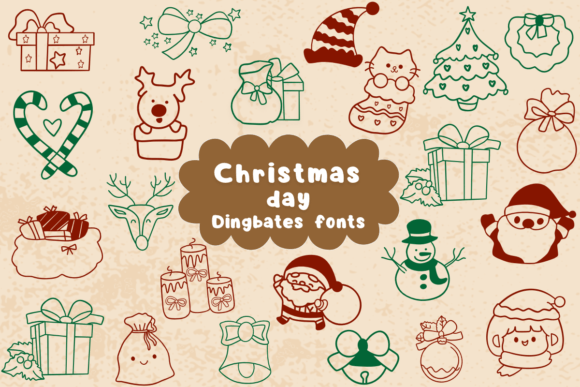
Deck the Halls with a Font that Speaks Christmas Cheer
It’s the most wonderful time of the year, and for many of us, that means breaking out the festive decorations, crafting handmade cards, and getting creative with our holiday decor. As I sat at my desk, surrounded by twinkling lights and the scent of hot cocoa, I stumbled upon a font that brought a smile to my face – the Christmas Day Font. This charming dingbat font is a treasure trove of cute Christmas images, each one carefully crafted to bring a touch of whimsy to any design project.
With the Christmas Day Font, designers can add a playful twist to their holiday designs, from greeting cards to gift tags, and even festive web graphics. The font’s value lies in its versatility and ease of use, making it a must-have for any designer looking to add a dash of holiday cheer to their work.
Key Features of Christmas Day Font
- Unique Characteristics: Christmas Day Font features a festive and playful design, with intricate details and ornaments, making it perfect for holiday-themed projects and designs.
Christmas Day Font Review
I recently had the chance to work with the “Christmas Day Font” and I’m excited to share my honest thoughts on it.
- The font is well-designed for holiday-themed projects. It captures the festive spirit with its playful and cheerful feel.
- The font is highly customizable, allowing you to adjust the size, color, and style to fit your design needs.
- The font is compatible with a wide range of platforms and devices, making it a great choice for web and print designs.
- The font may be too festive for some projects, which could limit its versatility.
- The font lacks a clear bold or italic style, which may make it difficult to use in certain contexts.
- The font’s legibility can be a concern in smaller sizes or when used in certain color combinations.
Overall, the “Christmas Day Font” is a great choice for holiday-themed projects, but it may not be the best fit for more general or professional designs. With its high level of customization and compatibility, it’s a solid choice for designers who need a festive font that can be tailored to their needs.
Use the “Christmas Day Font” to add a festive touch to your holiday graphics, cards, and invitations.
Combine the “Christmas Day Font” with other holiday-themed graphics and elements to create a cohesive design.